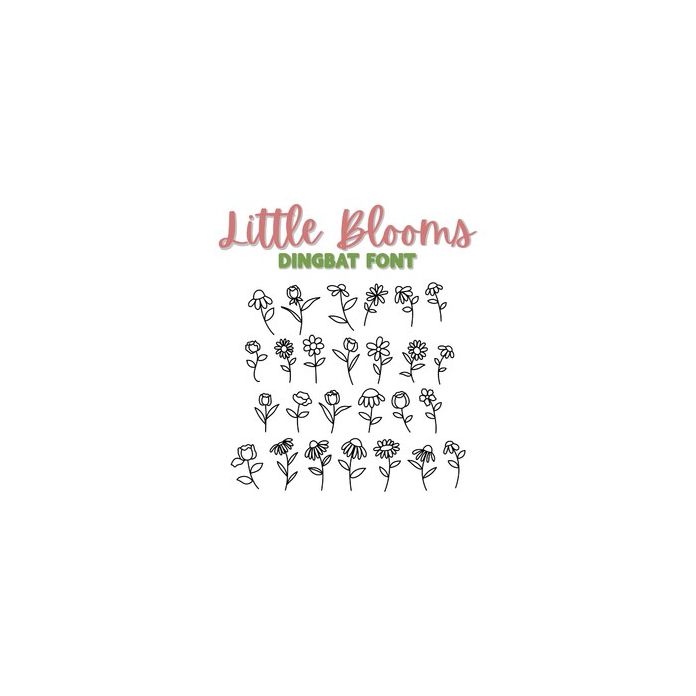
Introducing our delightful "Little Blooms" font! This charming typeface features 26 adorable little blooms that are ready to add a touch of whimsy and creativity to your projects. Whether you're working on invitations, cards, posters, or any design that calls for a dash of cuteness, these blooming characters are the perfect choice. Let your creativity flourish with this enchanting font!